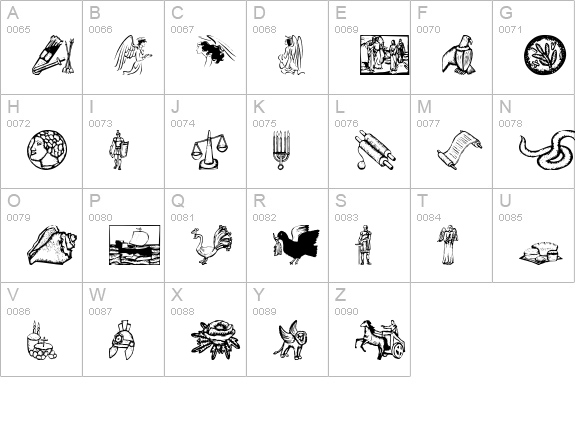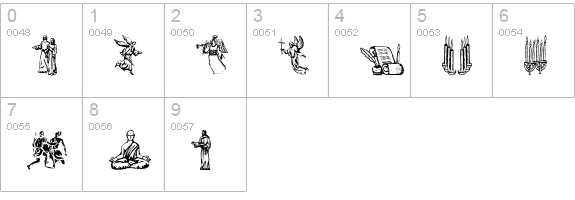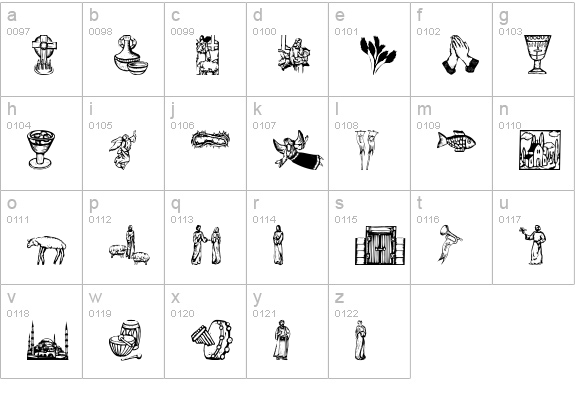
ReligiousSymbols Font Details
ReligiousSymbols is a captivating and versatile font that celebrates the diversity and beauty of religious symbolism. This font is the perfect companion for any project that seeks to convey a sense of spirituality, faith, and reverence. With its intricate and meticulously designed symbols representing various religions from around the world, ReligiousSymbols allows you to add a touch of sacredness and cultural significance to your designs. Each symbol in this font has been carefully crafted to accurately reflect its respective religious tradition, ensuring that the essence and meaning behind each symbol is preserved. Whether you are designing a logo for a religious organization, creating a poster for an interfaith event, or simply adding a touch of spirituality to your personal projects, ReligiousSymbols is the ideal choice. One of the greatest aspects of ReligiousSymbols is that it is available for free download at FontsMarket.com. This means that you can access this incredible font without any cost, allowing you to bring your creative visions to life without any limitations. FontsMarket.com offers a wide range of high-quality fonts, and ReligiousSymbols is just one of the many gems you can discover on their platform. Download ReligiousSymbols today and unlock a world of religious symbolism and inspiration at your fingertips. Let this font guide you on a visual journey through different belief systems and unite people through the power of design. With its stunning collection of symbols, ReligiousSymbols is a font that not only captures the eye but also sparks meaningful conversations about faith, spirituality, and the universal human experience.